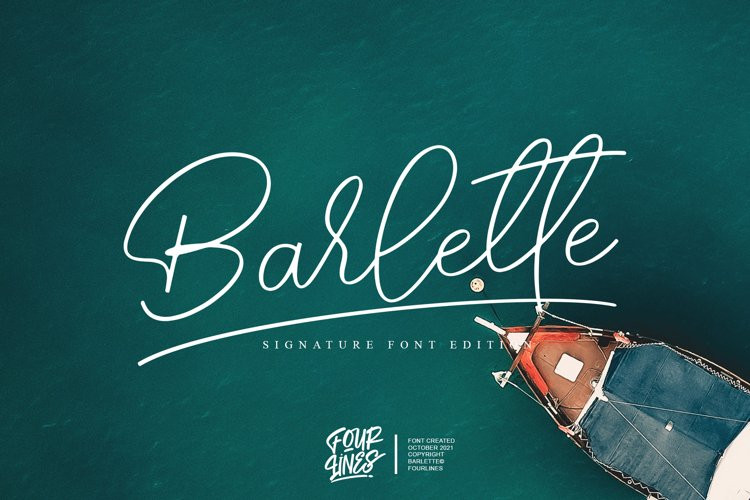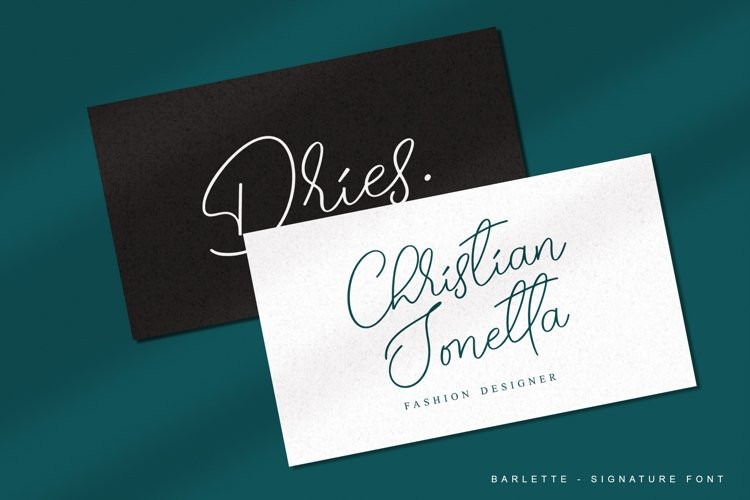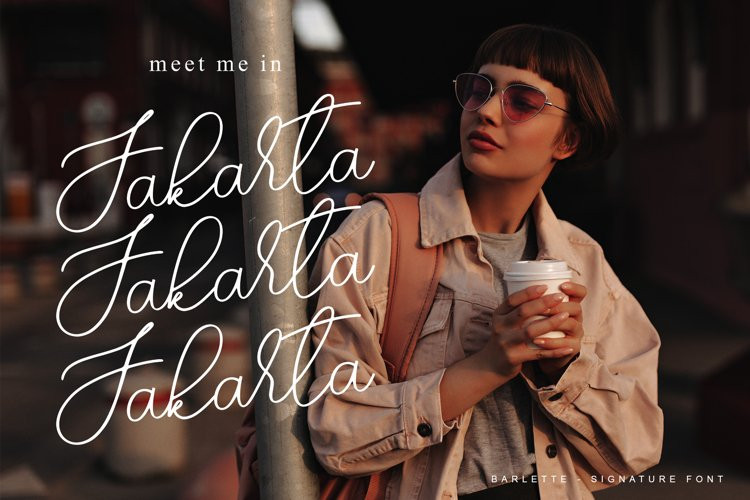
Barlette Font
Barlette FontGuastica is a dazzling and delicate script font. This font is PUA encoded which means you can access all glyphs and swashes with ease!